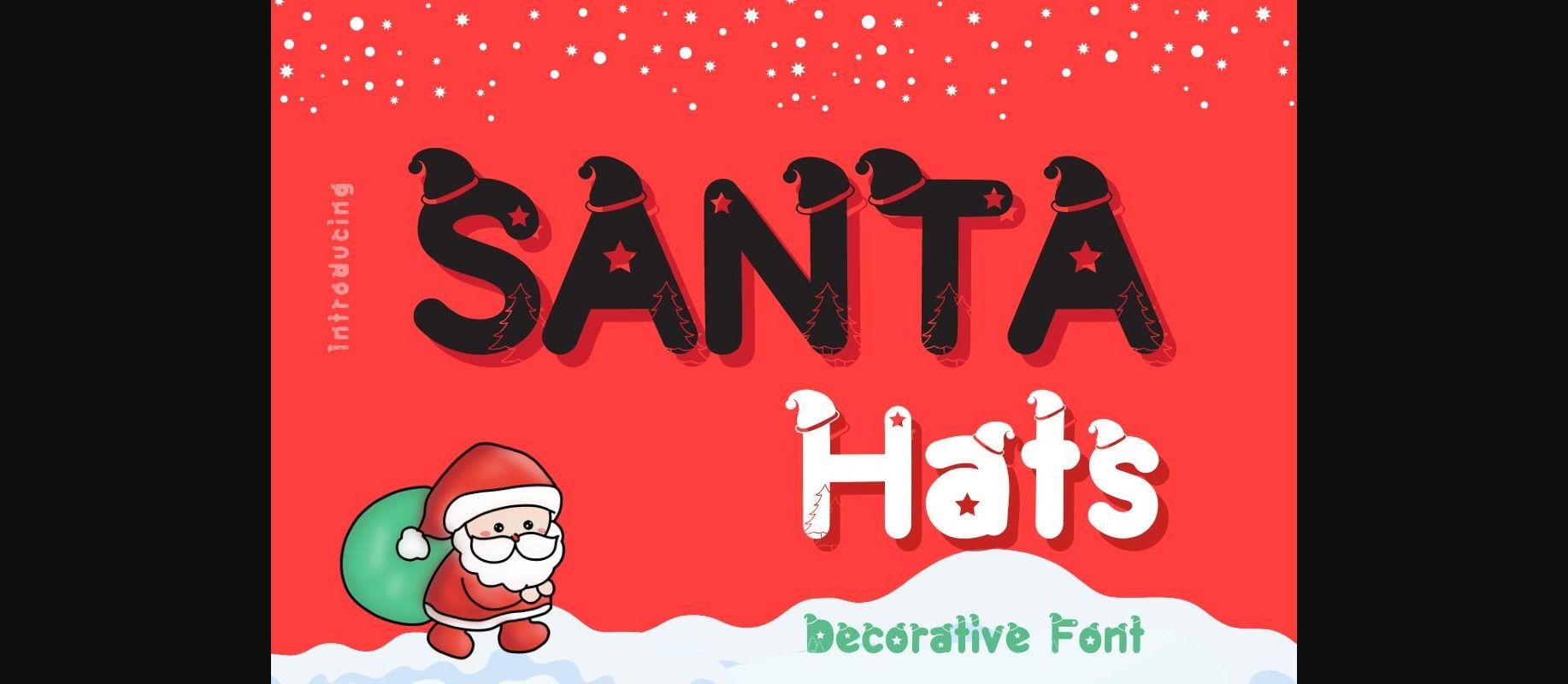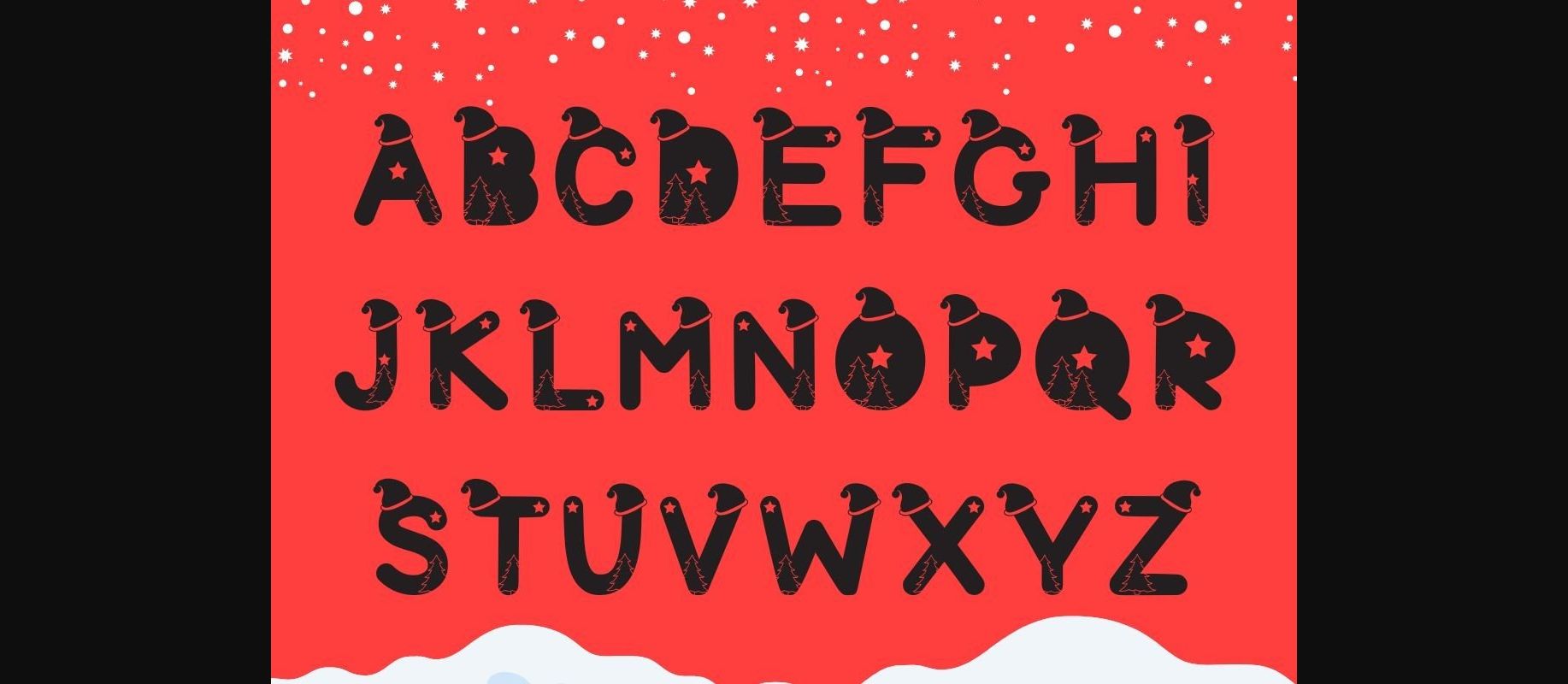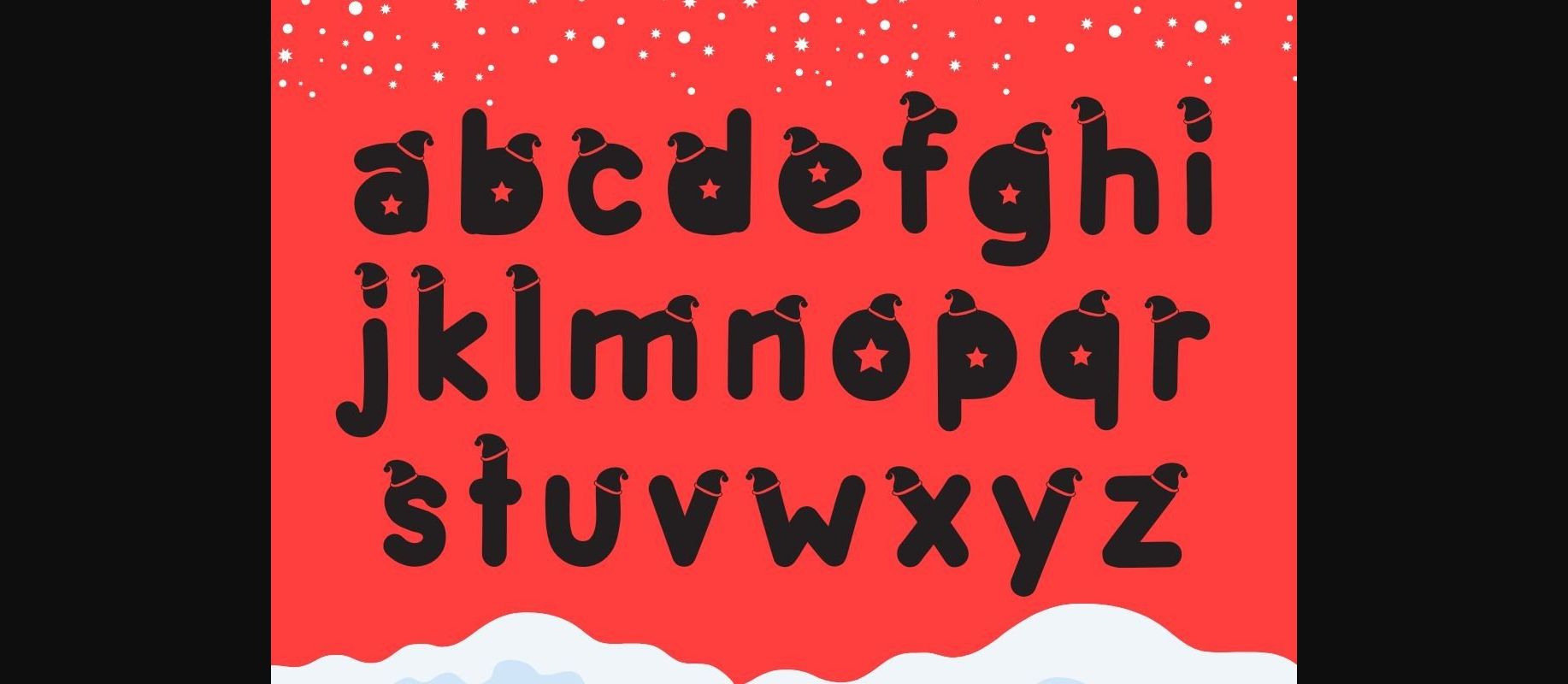
About Santa Hats Font
Santa Hats is cute decorative font that uses a variety of hats and stars combined with a bold font. This font has a quirky style which makes it perfect for all your Christmas-themed projects. Or use it to design products such as banners, content, mugs, cards, shirts, stationery, social media posts, and more!